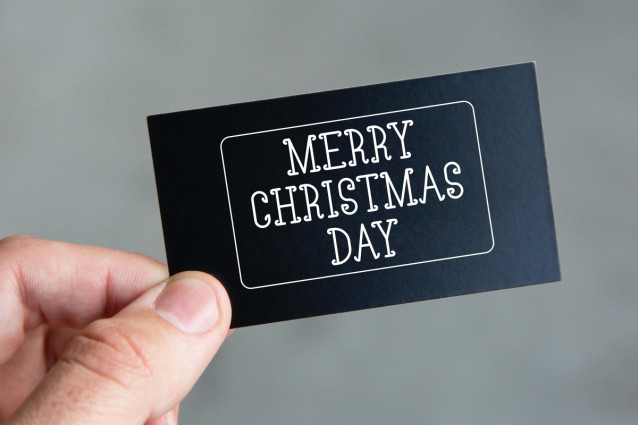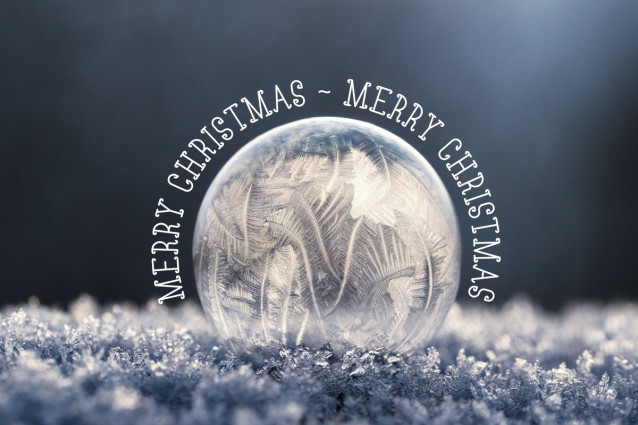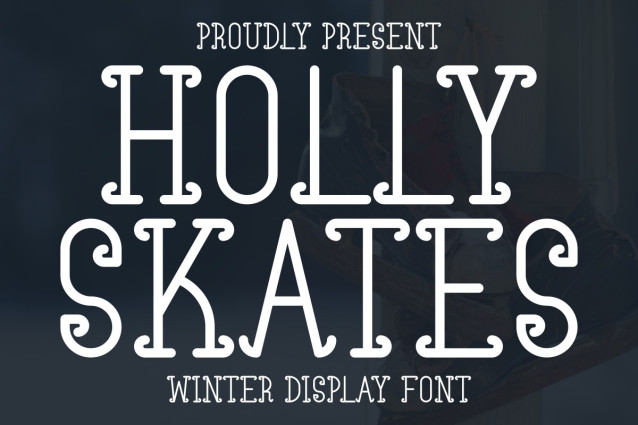
Holly Skates Font
Holly Skates Font is a winter display font that seamlessly combines the magic of Christmas with the grace of ice skates. This unique typeface is designed to infuse your designs with the charm and elegance of the holiday season. Perfect for quotes, backgrounds, posters, trendy t-shirts, chic mugs, tote bags, elegant frames, and cozy pillows.